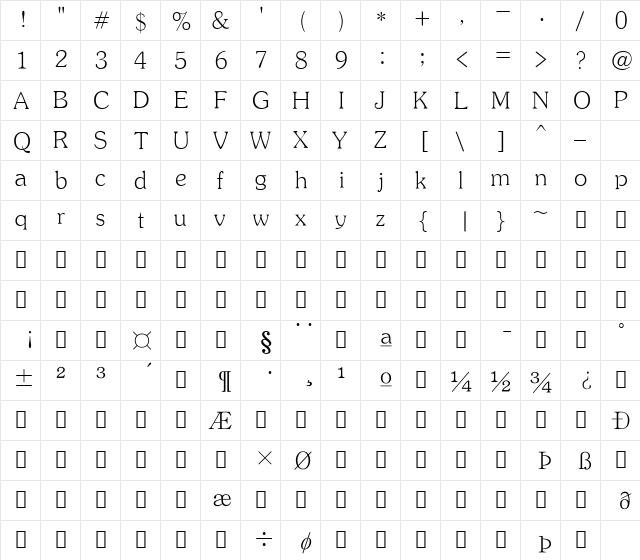
HYSinMun-MyeongJo Regular
Design Context for HYSinMun-MyeongJo Typeface
HYSinMun-MyeongJo offers clean, dependable letterforms without strong stylistic allegiance, making it a practical choice for designers who need flexibility.